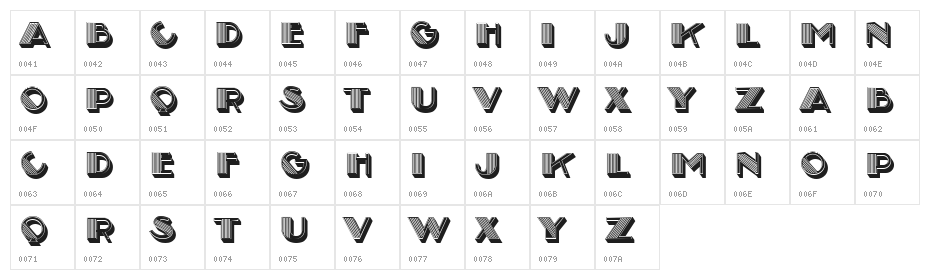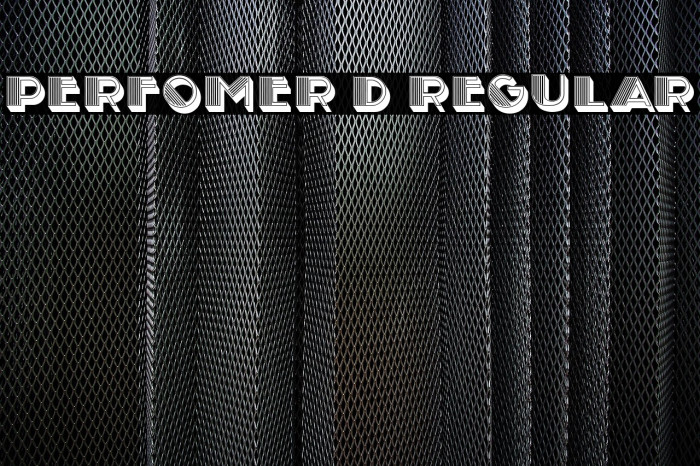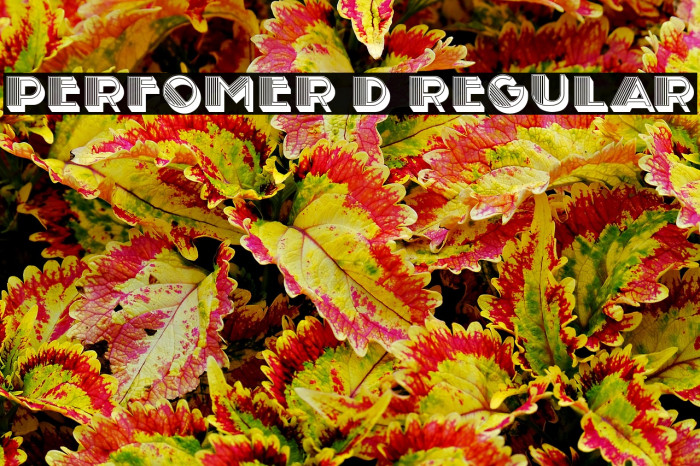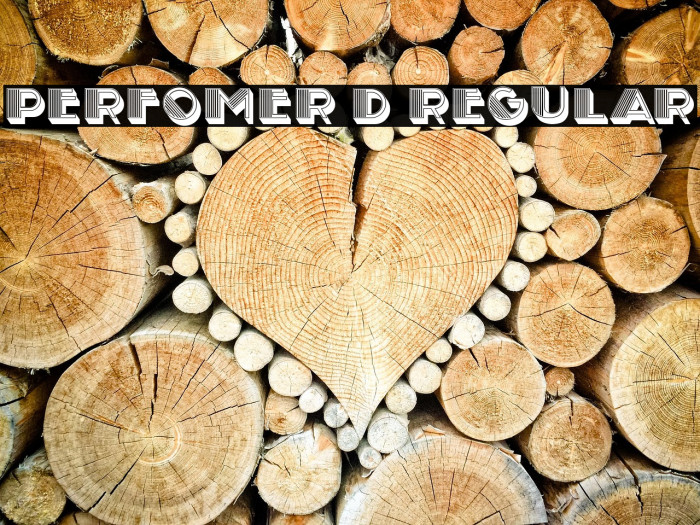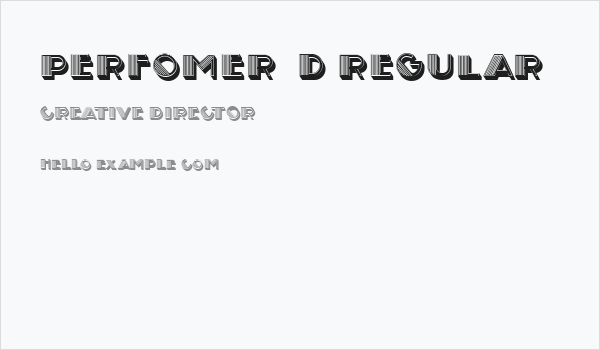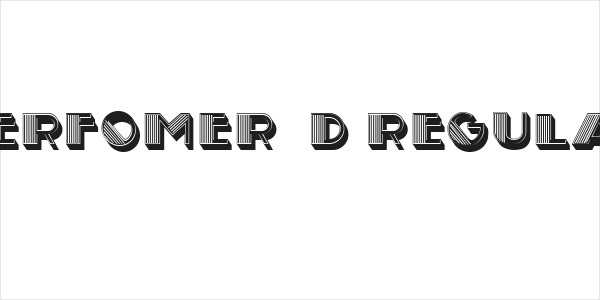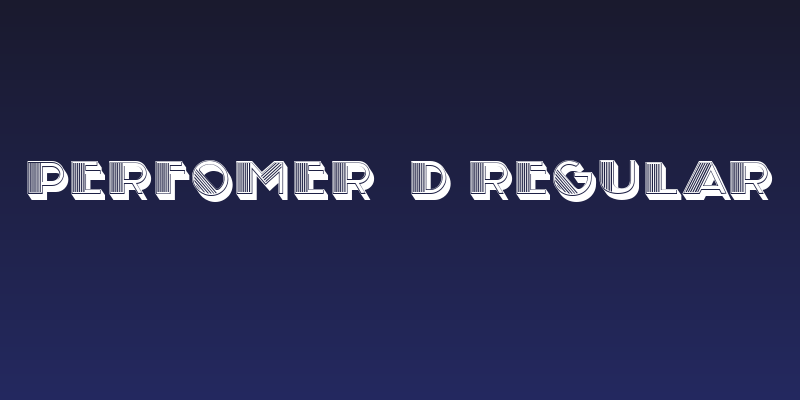
Perfomer 3D Regular Font
Perfomer 3D Regular Description
This font features a bold, three-dimensional design that gives each character a striking and dynamic appearance. The letters are crafted with a solid, shadowed effect that creates depth and a sense of movement. The geometric shapes are consistent throughout, with clean lines and sharp angles that enhance its modern aesthetic. The font is highly decorative, making it ideal for eye-catching displays and headlines. Its unique style is both playful and sophisticated, suitable for projects that require a strong visual impact.